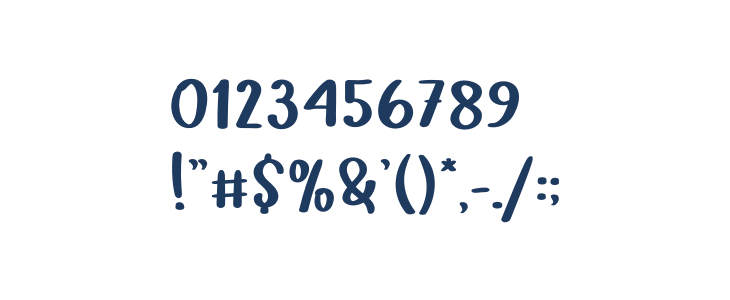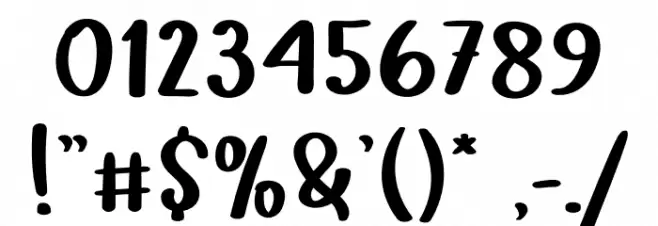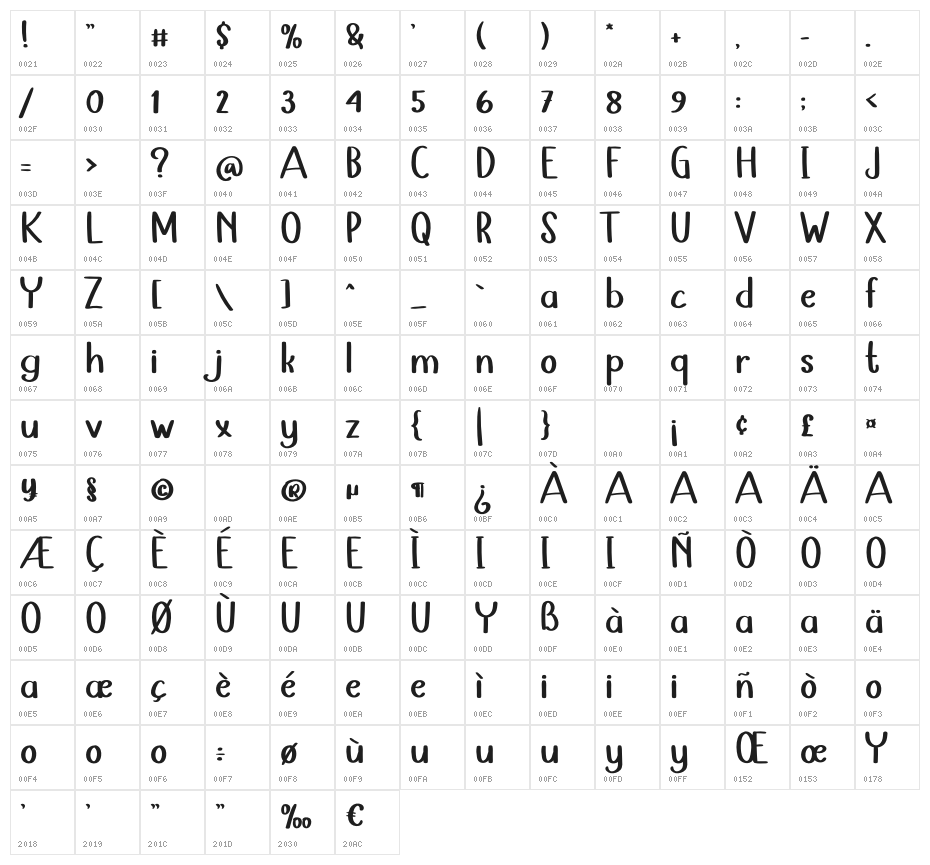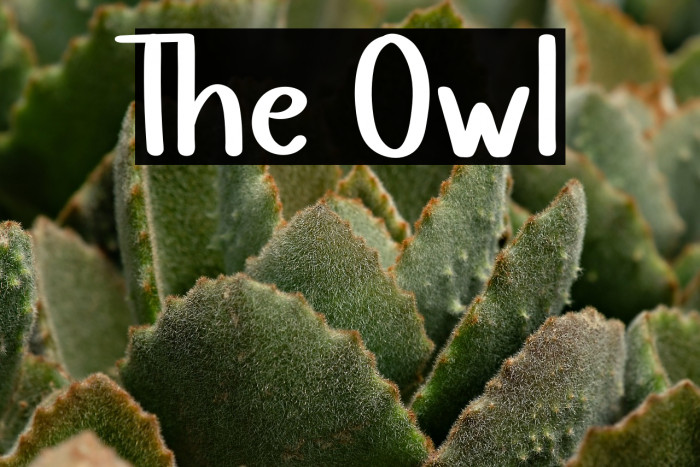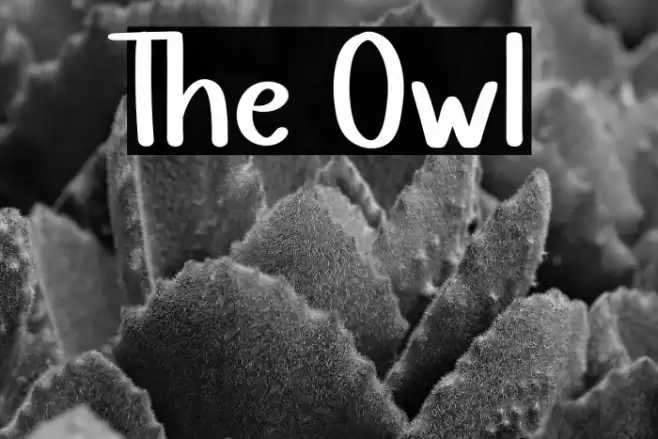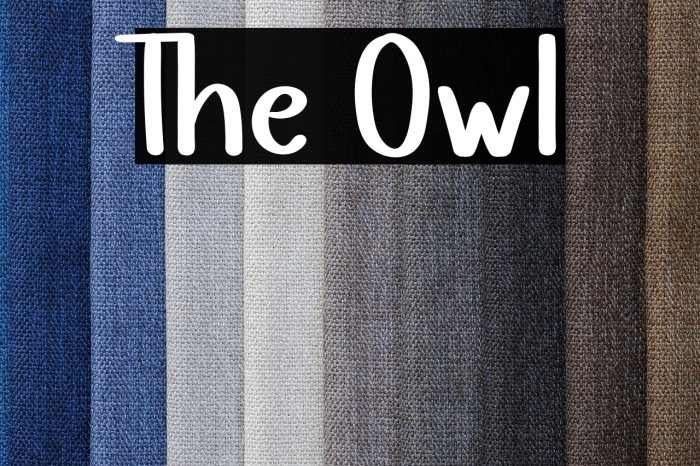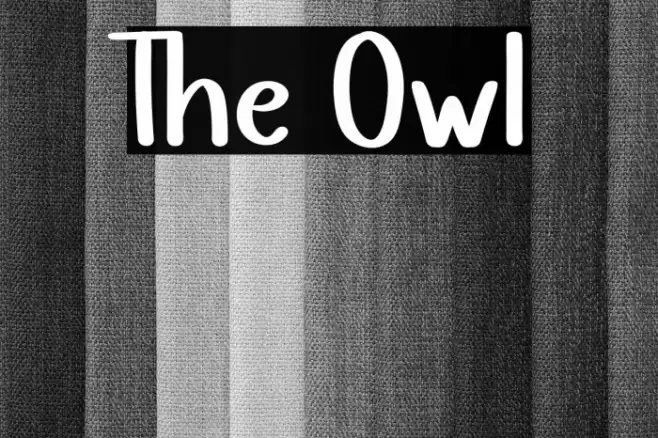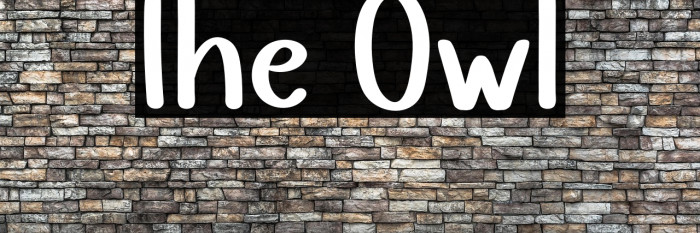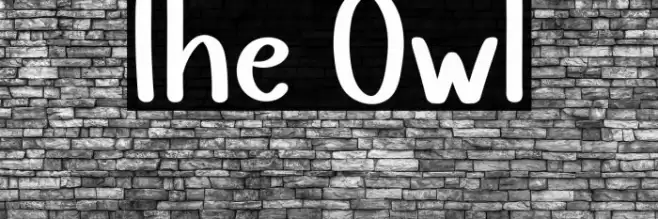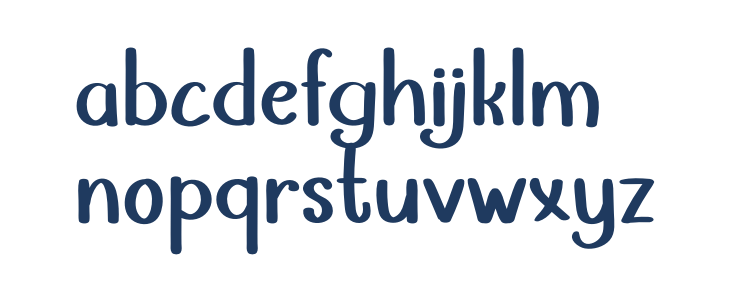
The Owl Font
The Owl Description
This playful and whimsical font features a handwritten style with a casual and friendly appearance. The letters are slightly irregular, giving it a natural and organic feel. The uppercase characters are bold and prominent, while the lowercase letters maintain a consistent flow with rounded edges. Numbers and special characters are designed to match the overall playful aesthetic, making it suitable for creative and informal projects. The font's unique charm is perfect for adding a personal touch to any design.
| Use Case | Logos, Headlines, Informal text |
| Proposed Projects | Ideal for greeting cards, children's books, playful branding, and social media graphics. |